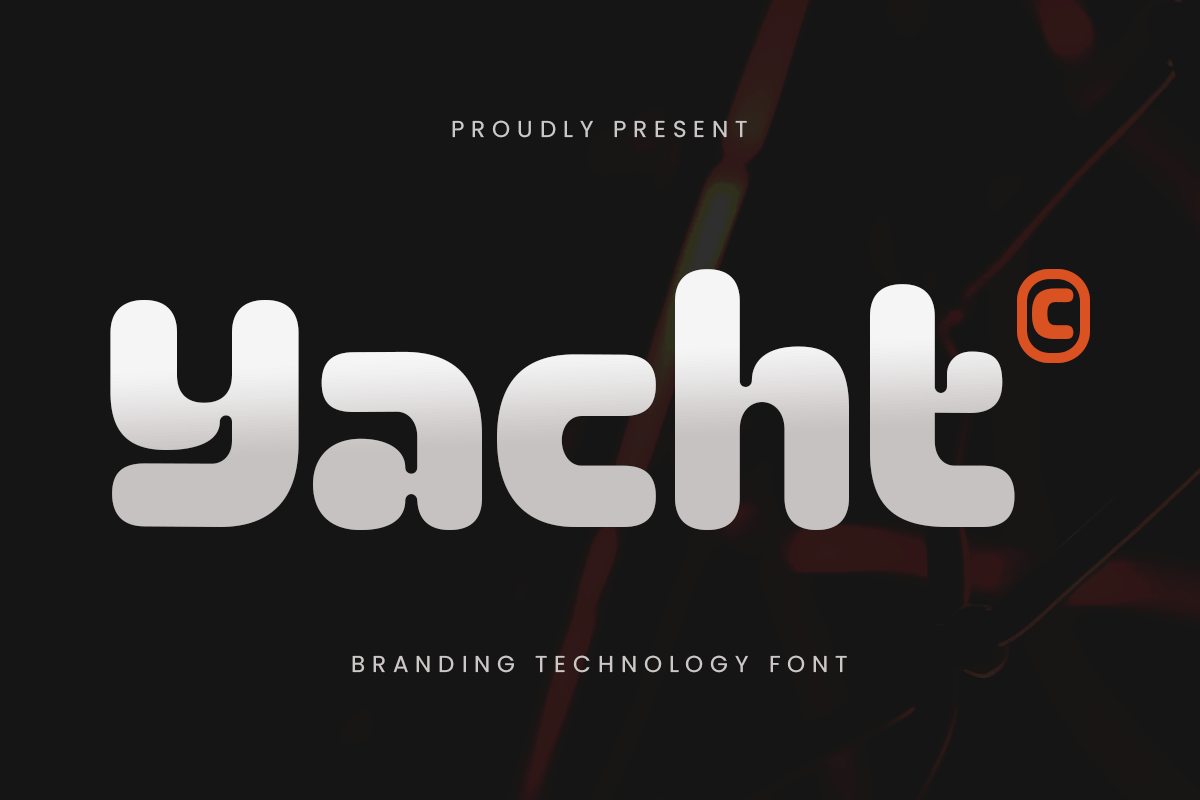
Yacht
-Branding Technology Font
Yacht - Branding Technology Font
Yacht is a clean, futuristic sans-serif font crafted for tech-focused branding, innovative startups, and bold digital experiences. With its smooth geometry, sharp edges, and contemporary look, Yacht font is perfect for logos, app UI, pitch decks, and high-end corporate designs. It delivers clarity and style while maintaining a powerful presence across all media.
Inspired by minimal technology aesthetics and premium modern brands, Yacht font blends functionality with finesse. It works well for both headlines and body text, making it a versatile choice for everything from websites to product packaging and beyond.
Command attention and communicate innovation with Yacht—a font built for visionaries and bold creators.
Yacht Branding Technology Font Features:
• Sleek Sans-Serif Tech Style
• Ideal for Branding, Logos, Tech, Startups & UI/UX